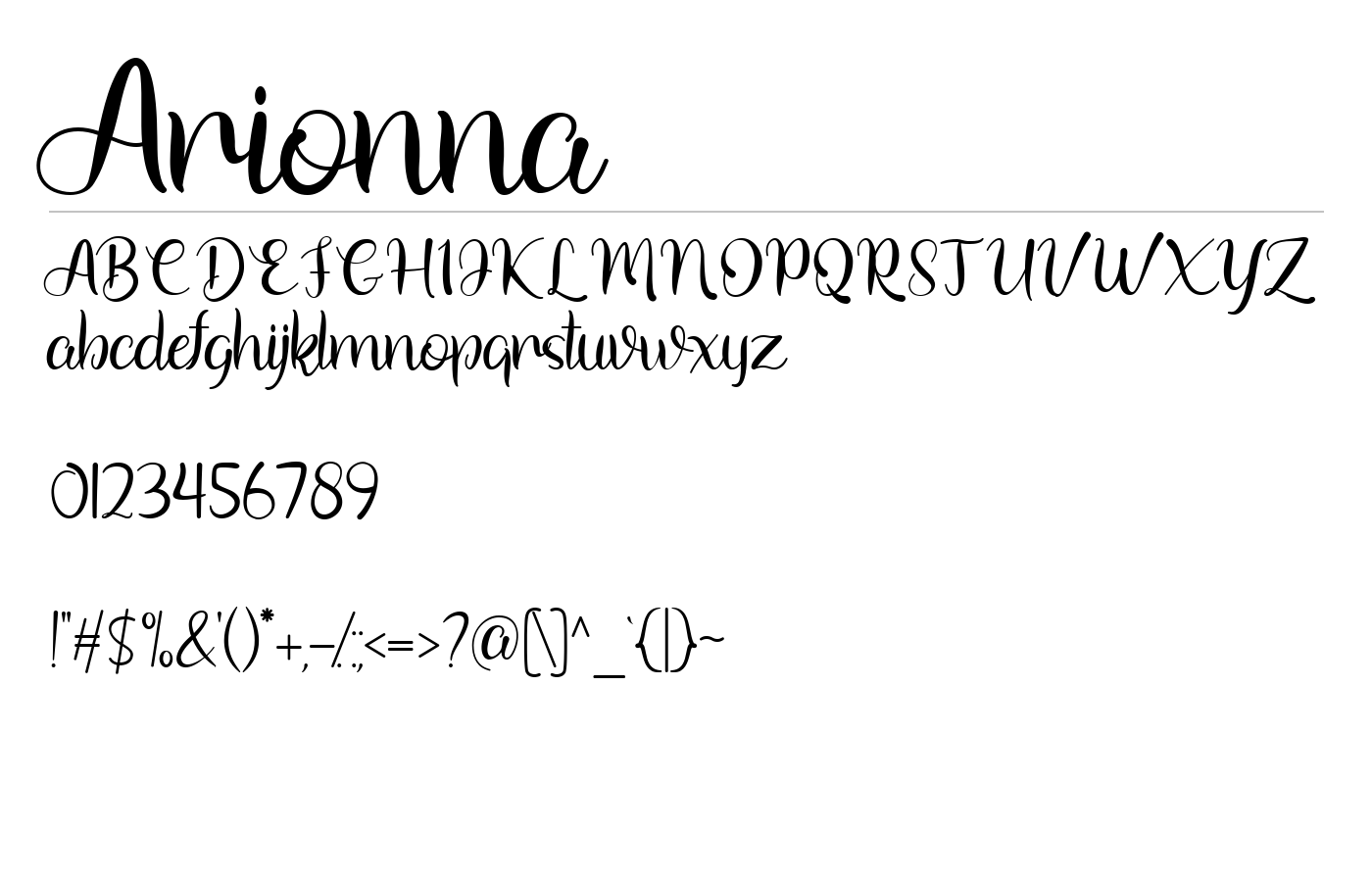
Arionna is a charming script font featuring a smooth, flowing style with moderate contrast and elegant, rounded strokes. Its playful yet refined letterforms and consistent weight make it ideal for creative branding, invitations, and editorial designs where a personal, handwritten touch is desired. This font blends warmth and sophistication, perfect for projects that want to convey friendliness with a touch of elegance.
Arionna Font
About Arionna Font
| Font family | Arionna Font |
| Designer | Stringlabs |